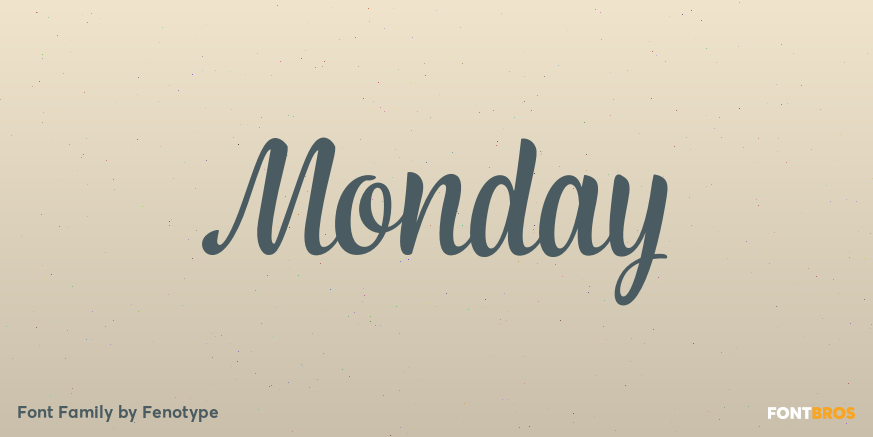
About Monday
Monday is a bold and strong script family of two weights and a matching ornament set. Monday has a polished 1950s hand lettering feeling to it and it is ideal for logo, packaging and brand design purposes. Monday is equipped with plenty of alternates…